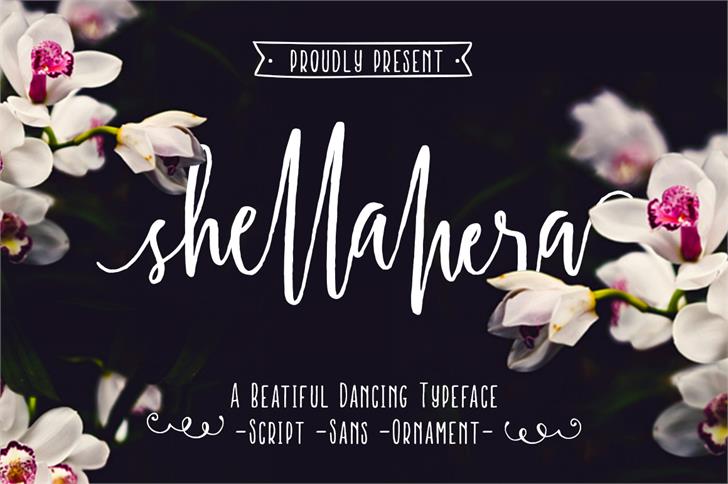
Shellahera Script font
ShellaheraScript Demo font — Created in 2016 by Lostvoltype Foundry
ShellaHera-is a handwritten script font family made using original brush pen and scanned with high resolution make this font is very personality and yes, it’s so beautiful with a dancing baseline.
ShellaHera-Script
ShellaHera-Sans
ShellaHera-Ornament